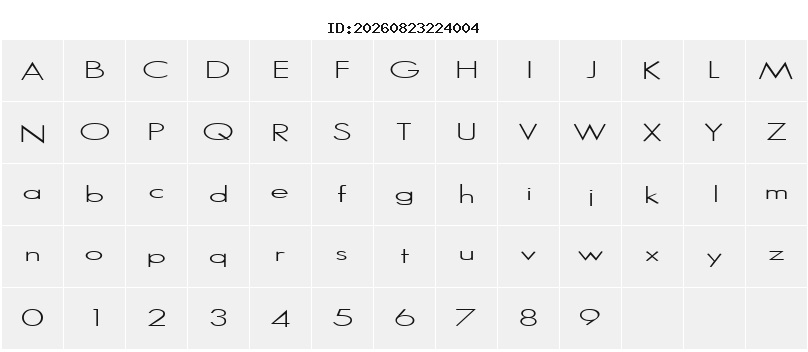
About SansSerif.ttf
SansSerif.ttf is a modern, elegant sans-serif font designed for ultimate readability and visual harmony. Perfect for branding, headlines, web design, and print materials.